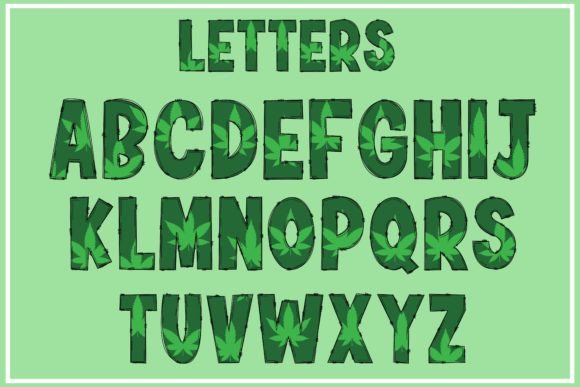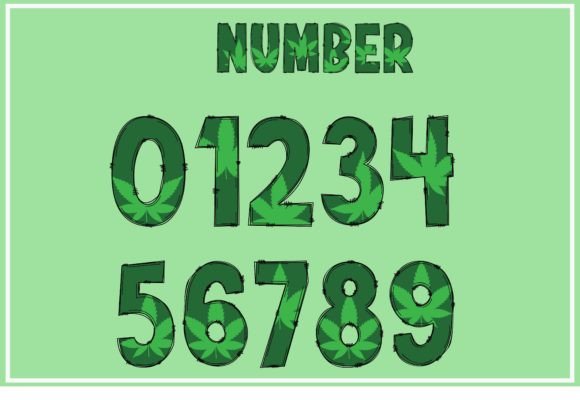
Unleashing Creativity with Hemp Font
Have you ever found yourself scrolling through Pinterest boards, stumbling upon an inspiring design that sparks an idea you just can’t shake off? Maybe it was a beautifully crafted logo, a vibrant illustration, or a striking typography that caught your eye. For designers, these moments of inspiration can be the catalyst for a new project or a fresh perspective on an existing one.
Enter Hemp Font, a cool color font that’s perfect for designers looking to add a touch of elegance and sophistication to their creative projects. Whether you’re working on apparel designs, homeware designs, books, or branding materials, Hemp Font is an excellent choice. Its versatility and unique style make it a valuable addition to any designer’s toolkit.
With Hemp Font, you can unlock new possibilities and take your designs to the next level. Say goodbye to bland typography and hello to a world of creative expression. Let’s explore the world of Hemp Font and discover how it can help you unleash your full design potential.
Hemp Font Key Features
- Font Family: Hemp Font is a unique, sans-serif font family designed to mimic the texture and feel of hemp fibers.
- Character Set: The font family includes a wide range of characters, including Latin, Cyrillic, and Greek alphabets, as well as punctuation and symbols.
- Size: The font family includes multiple weights and styles, ranging from Light to Extra Bold, with corresponding font sizes from 8 to 72 points.
- Unique Characteristics: The Hemp Font features a distinctive, organic texture that resembles the fibers of hemp plants, giving it a natural and earthy feel.
Hemp Font Review
Overall, I think the Hemp Font is a nice addition to any design project, but it’s not without its quirks. ✨ One thing that works well is its unique and natural aesthetic, which can add a nice touch to outdoor-themed designs or branding.
Some of the benefits of this font include:
- ✨ Highly customizable: With various font styles and weights available, you can easily adjust the font to fit your design needs.
- ✨ Friendly for long text: The font is designed to be easy to read, even for long blocks of text, making it suitable for blog posts, articles, and other written content.
- ✨ Supports multiple languages: Hemp Font supports a wide range of languages, making it a great choice for global brands or websites.
- ⚠️ Limited use in formal settings: Due to its natural, earthy aesthetic, Hemp Font may not be the best choice for formal or professional designs, such as financial reports or academic papers.
- ⚠️ Can be too casual: Depending on the design, Hemp Font can come across as too casual or relaxed, which may not be suitable for all branding or marketing efforts.
Overall, I would say that Hemp Font is a solid choice for designers looking for a unique and natural font. While it may have some limitations, it can be a great addition to the right design project.
Open PowerPoint or Word and select the “Home” tab. Click on the “Font” dropdown menu and select “Hemp Font”. You can then adjust the font size, color, and style to fit your needs. Hemp font is great for adding a rustic and natural touch to your presentations, reports, and documents.
Hemp font is commonly used in designs that require a natural and earthy feel, such as:
- Logos and branding materials for eco-friendly and sustainable businesses
- Product packaging and labeling for natural and organic products
- Advertising materials for outdoor and environmental campaigns
- Wedding and event invitations with a rustic or vintage theme
Tips for Getting the Most Out of Hemp Font
To get the most out of hemp font, consider the following tips:
- Pair hemp font with earthy colors and textures to create a cohesive design